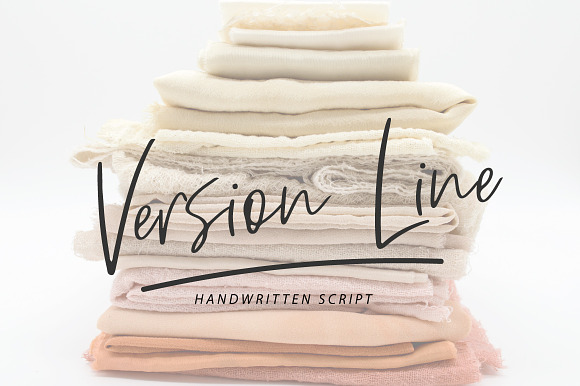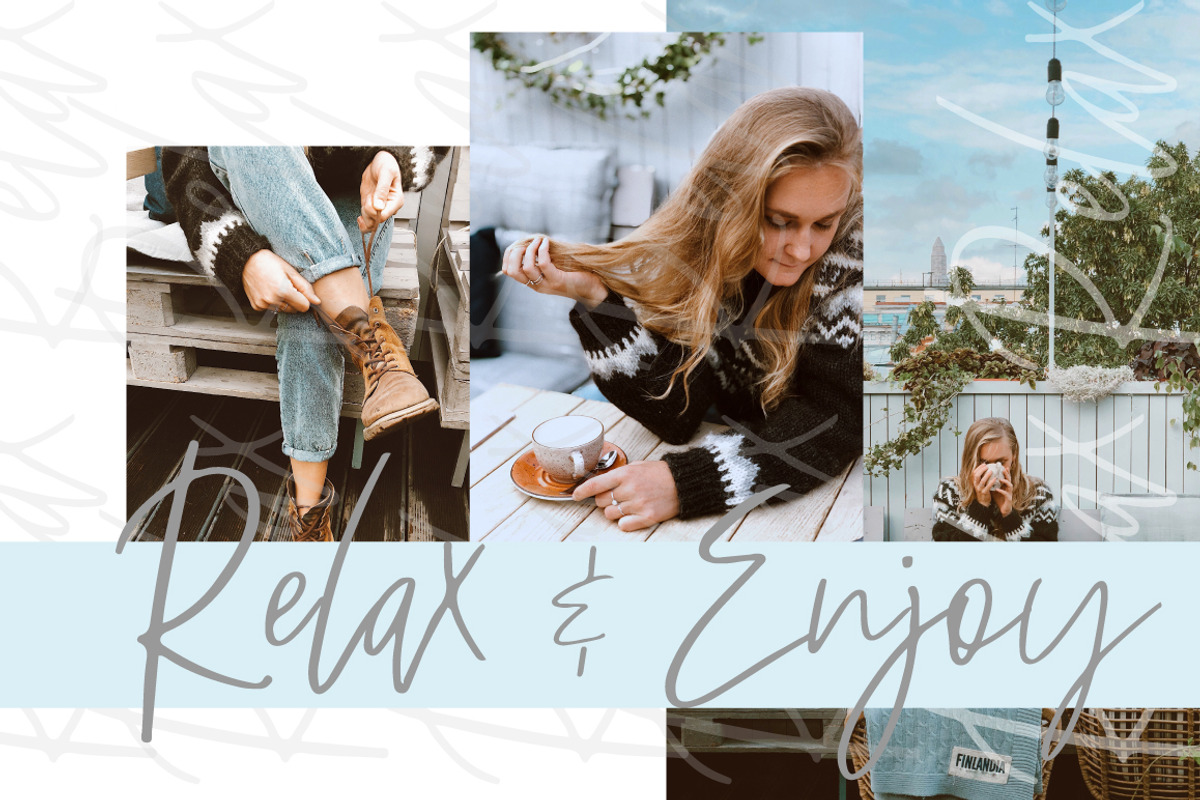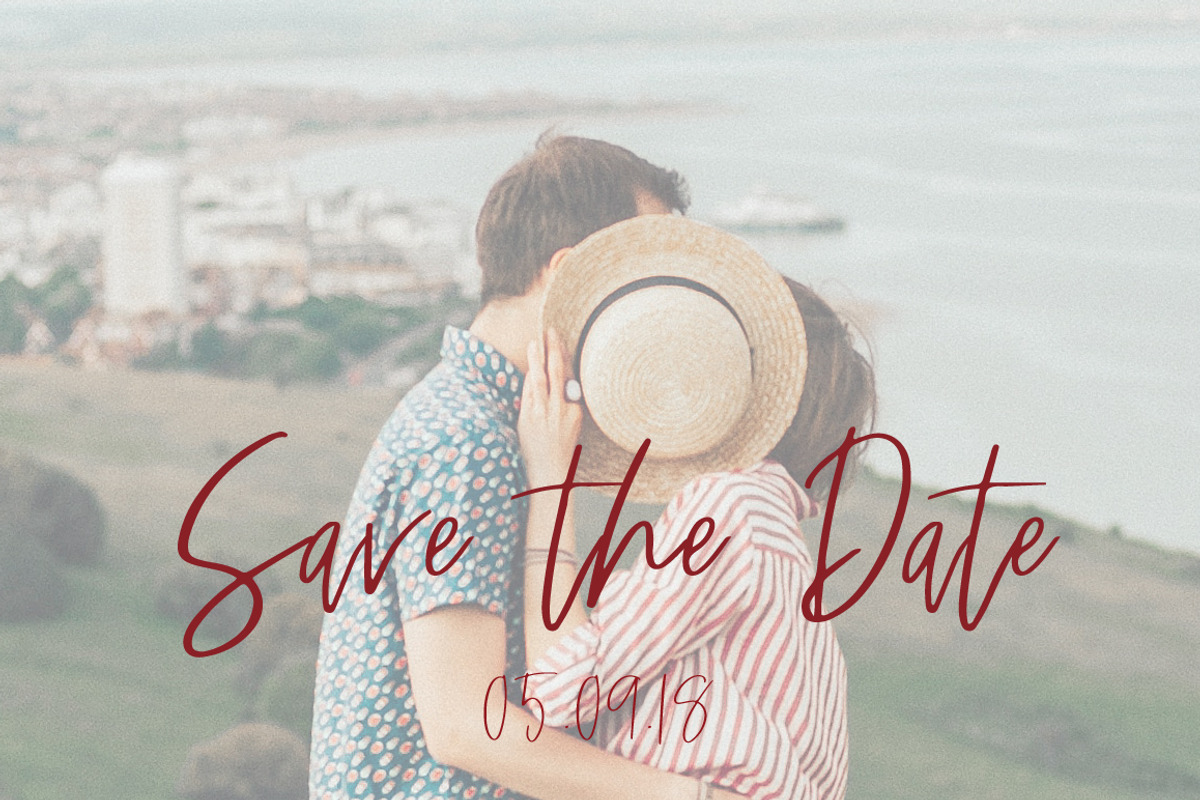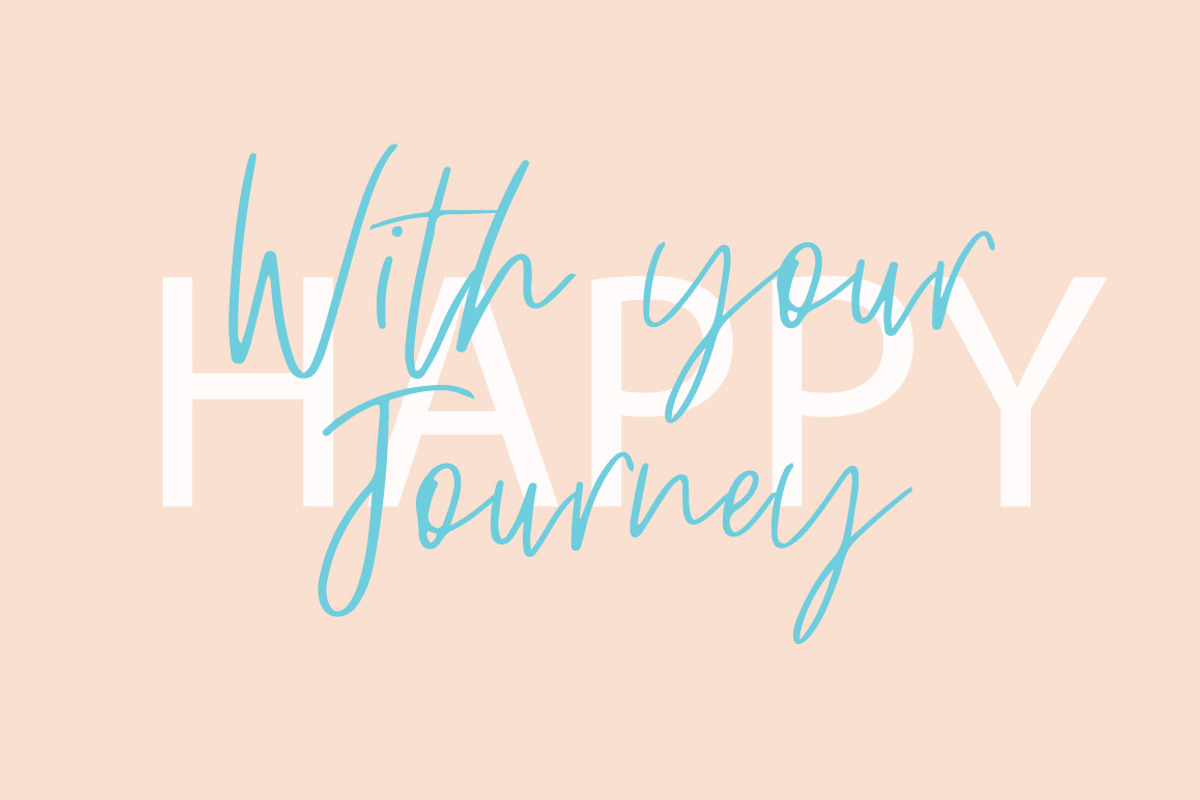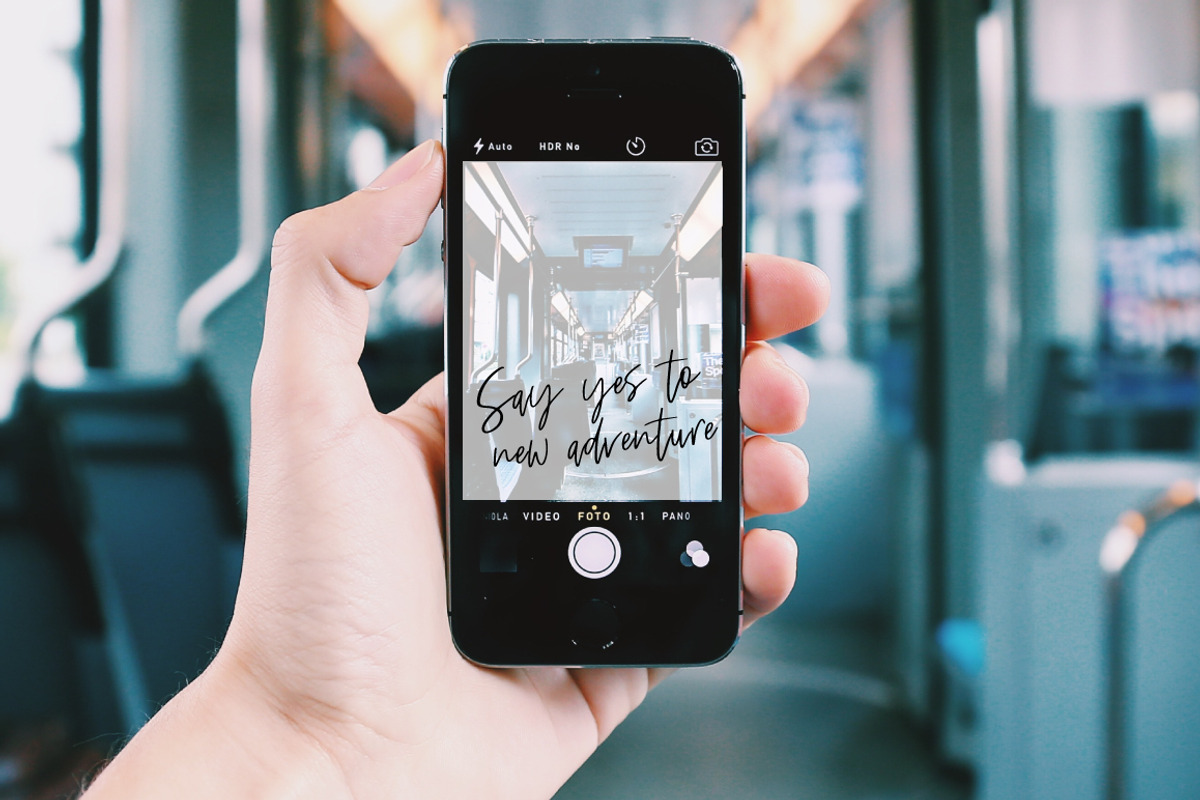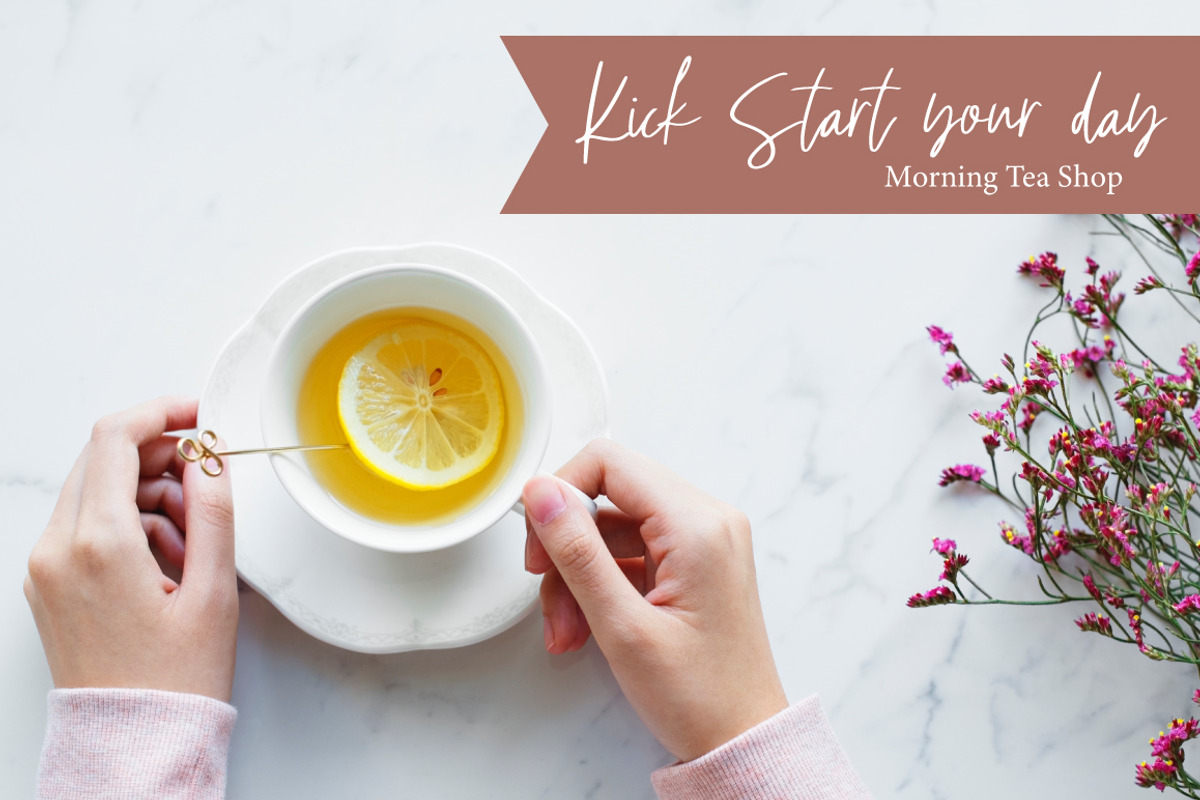
Version Line | Handwritten Font
Version Line is a Chic up script font.
Every single letter has been creative carefully and Perfectly for every project. This font is a little romantic script designed for making your set of invitations, quotes, blog posts, and more completely beautiful
Version Line | Handwritten Font by Artstudio fits naturally into Branding, posters, packaging, typography.